Giving shape to urbanness – City Fonts
Transform values, arrange environments, support culture, and be rooted in everyday life.
The shape of Type Project’s aspirations.
From the creation of a magazine-dedicated font for the design publication AXIS Magazine, to the production of FitFont with freely combinable weight and contrast options, to its offerings for the City Font Project and of a range of font experimentation tools, Type Project aims to continue with its original approach to development.
Type that adapts to and supports everyday lifestyles and environments
Giving shape to urbanness – City Fonts
Type Project is engaged in an initiative to create “City Fonts” that are closely connected to everyday life and culture. In contrast to both AXIS Font and TP Mincho, which embody Type Project’s characteristic neutralness and visual approachability, the City Font undertaking is a development that may be thought of as antithetical to such neutralness. Accordingly, as both Nagoya’s “Kinshachi Font” and Yokohama’s “Hama Mincho” appear to be antitheses of that neutralness, we asked Suzuki if there is anything these very different projects have in common.
“I think of them as being two pillars. One is text-use fonts, meaning fonts that have high functionality for use in main body text situations, while the other is display-use fonts, which possess qualities of being entertaining and idiosyncratic that make them desirable for headlines and the like. They’re pillars that have very different orientations – you can’t make a text font if your focus is on displays, and you can’t create a display font if you are focusing on main body text. But legibility isn’t always the only thing that is important. If you look at Edo-moji character styles, for example, the variety is really astonishing. They aren’t made just for the variety, though. Sumo wrestling has rankings lists, and that’s why we have sumo-moji; and yose comedy acts use mekuri signboards, so we have yose-moji. The existence of kabuki plays created the need for kabuki-moji.* Similarly, I think that in the background of every display font, there were probably specific conditions that gave rise to it.” The look of type characters that are as they should be, suited to that place, to that city. Through type, the City Font project is giving shape to the atmosphere of the city.
On the task of popularizing City Fonts
Suzuki says that one of his ultimate objectives with City Fonts is that each of them be a typeface that becomes part of its locality and everyday life. “With City Fonts, the hope is that they get incorporated into their localities as much as possible. I have high expectations that the City Fonts will have the effect of communicating my fascination with the characters. So, for example, when people come to Nagoya and see Kinshachi Font, I hope they’ll think, Ahh, I’m really in Nagoya.”
Although various requests have been made for locally-oriented fonts, it seems they rarely get past the request stage. “We’ve received a variety of requests, including some from local companies. As it’s highly unlikely that members of the general public will be buying fonts anytime soon, the hope is that City Fonts will be used by city government institutions. But with their budgetary considerations and municipal assembly decisions and the like, it’s even harder time with them than with big corporations. And another thing that makes realizing City Fonts difficult is the fact that city administrations change every few years. It takes several years to make an original typeface, so even if the current leader says it’s good and they set aside the budget for it that year, if the next leader comes in and pulls the plug, it’s all over.”
However, Suzuki points out that the City Font for Yokohama, “Hama Mincho”, showed that it is possible to realize this idea and help people become more aware of fonts in everyday life through crowdfunding – gaining the participation of members of the general public in the form of financial support – and through their becoming attached to the font and nurturing it together. “I think that expressing urbanness in a type is a wonderful thing, and I really feel that this is something that raises the value of the city itself, just like what Johnston did in London.” Raising the value of a town and changing its environment – with type. Little by little, this project is taking shape.
Nagoya: “Kinshachi Font”
A City Font created to evoke the city of Nagoya, and as an attempt at nurturing a local font in the local community and broadcasting it to the world. In its design, the font refers in the starting point of a stroke, to the arc of the kinshachi – the motif of the mythical golden tiger-headed carp that famously adorns the roof of Nagoya Castle – and in the stroke’s end part, to the curvature of the castle’s gables and roofs. Done in a lively calligraphic style with a brush technique, this font incorporates the Maru-Hachi mark, the long-cherished official symbol of the city of Nagoya.
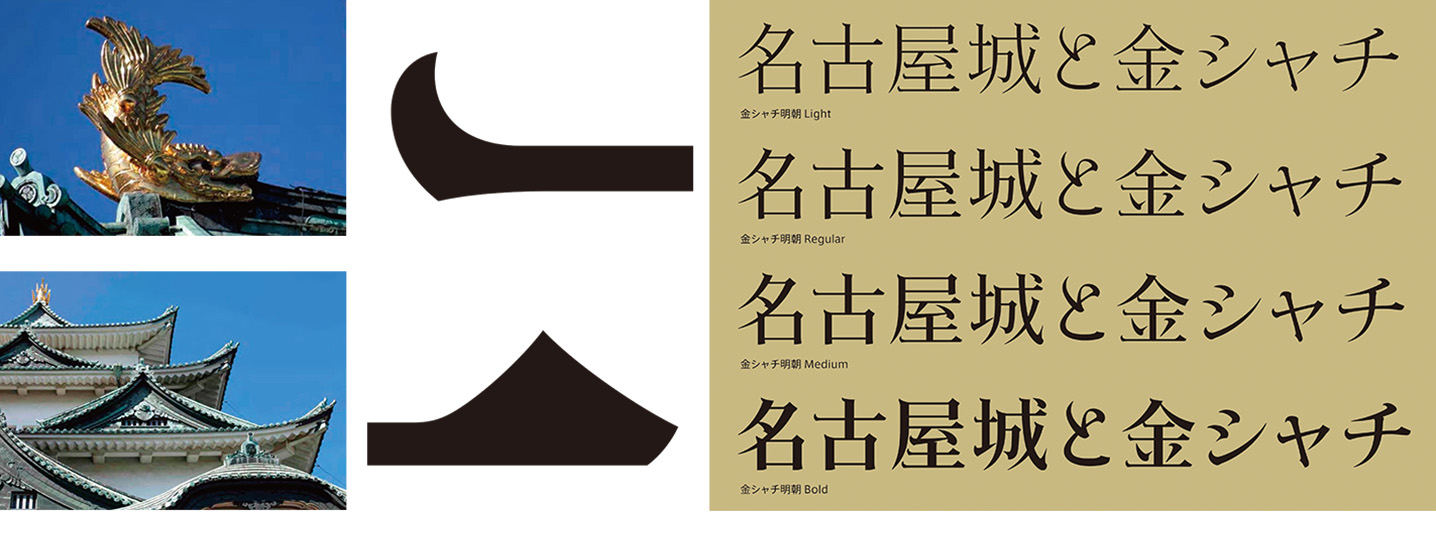
Right: The somewhat forceful expressiveness brings out a regionality that echoes the strongly flavored, local culinary specialties of Nagoya meshi.
Kinshachi Font
Yokohama: “Hama Mincho”
A font designed on the basis of impressions of Yokohama gained through fieldwork and a sampling of key phrases from over 2000 comments, which were collected in a branding program held with participation from Yokohama citizens on the occasion of the 150th anniversary of the opening of the city’s port. The horizontal strokes evoke the Hikawa Maru, Yokohama’s celebrated ocean liner, while the vertical strokes represent the city’s tall buildings seen from the ocean. On carrying out crowdfunding so as to bring the font to completion, ¥3,955,000 in contributions were received in response to the stated goal of ¥3,000,000.
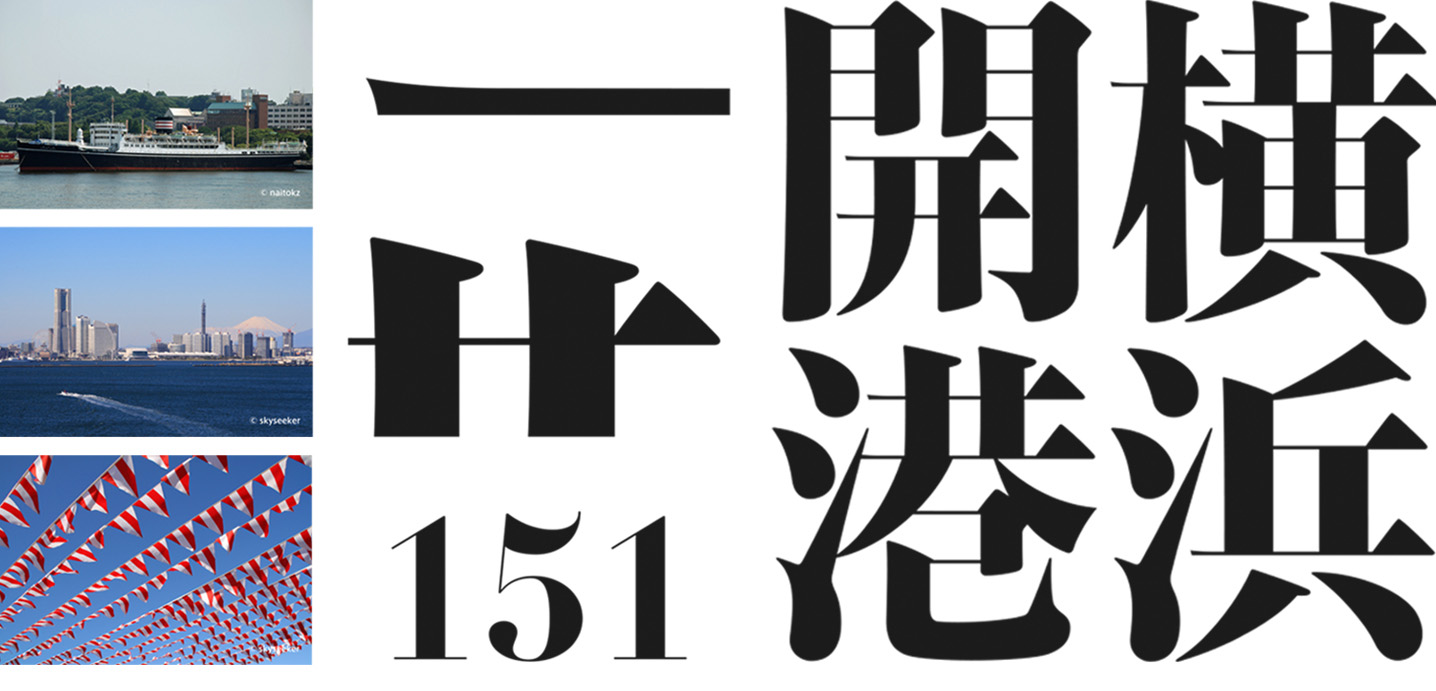
Hama Mincho
Tokyo: “Tokyo CityFont”
A trial-production font that was created and submitted in response to a request from the graphic designer Yoshiaki Irobe. Based on digital sign system fonts that were already in development at the time, this font was treated as an exclusive communication tool for the city, one that would strengthen Tokyo’s identity with the concept of a “refinement/stylishness” inking today’s Tokyo to old Edo.
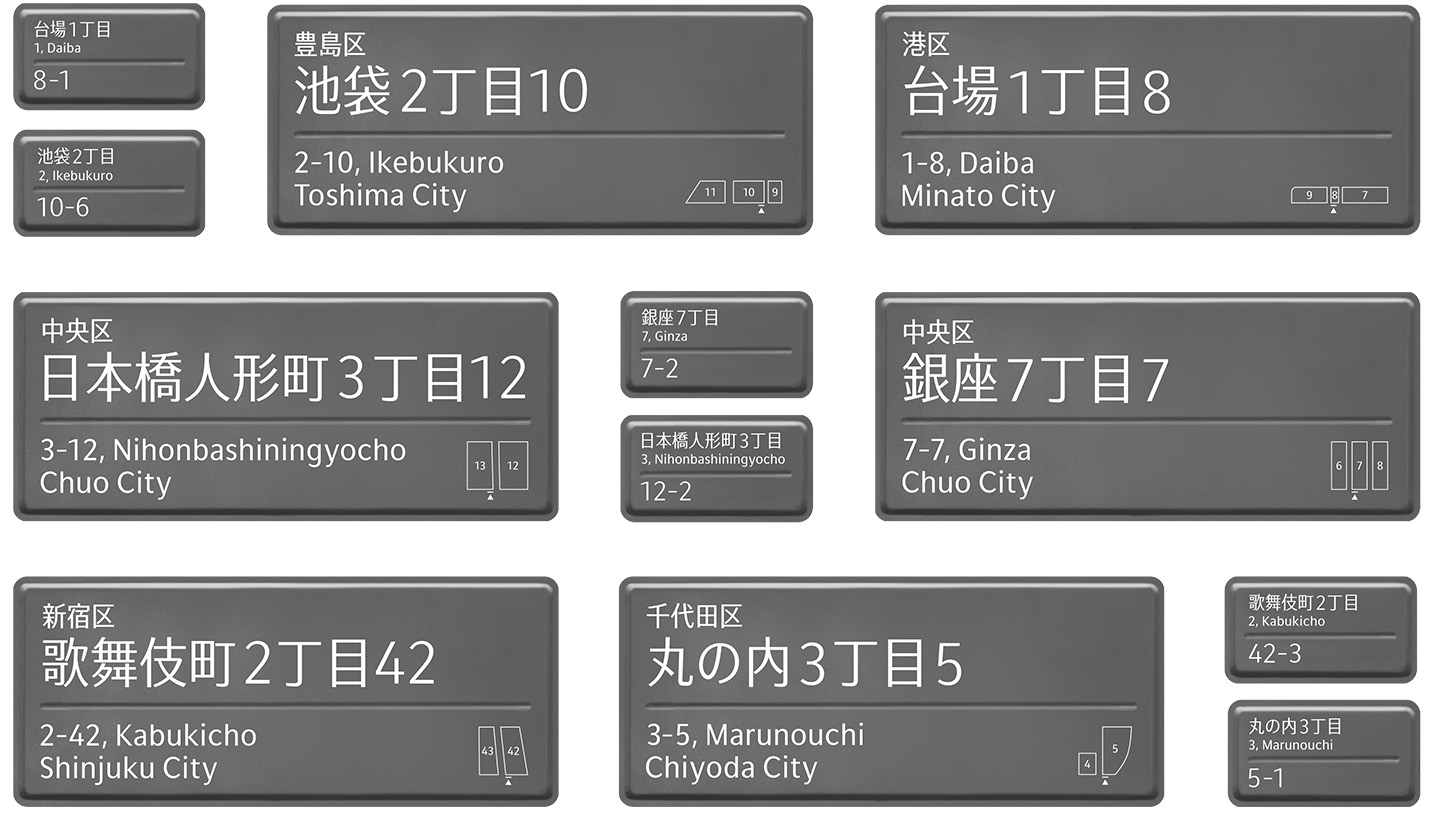
Tokyo CityFont
“Drop&Type” – a font trial production tool
Type Project’s goal
Though many people tend to shy away when it comes to the subject of fonts, everyone is constantly writing and reading characters, and they’re an essential part of everyday life. That is why they have the potential to change many values and environments – which would be the case even if there were only one way of thinking about characters, and one way of making them. Type Project’s approach to type characters and fonts is making closer connections between type and people, and helping to realize comfortable spaces. And within this approach, there lies the unwavering conviction and earnest wish to endeavor to make society a better place through type.